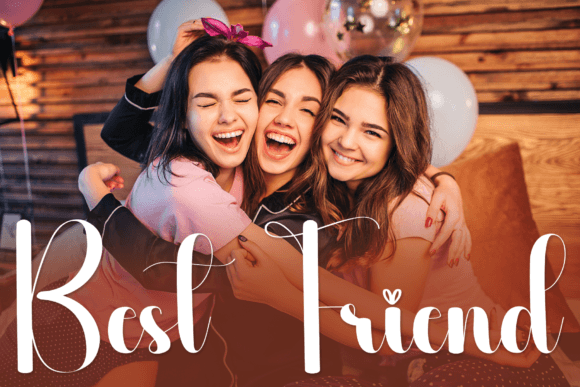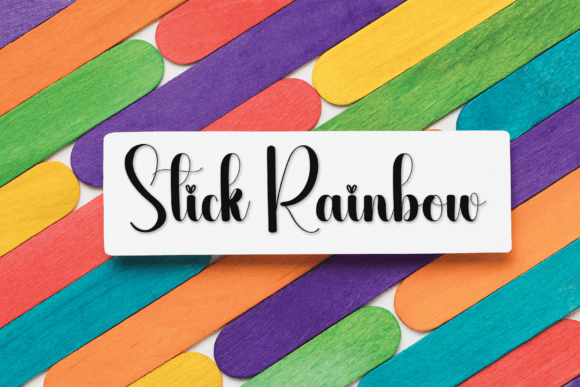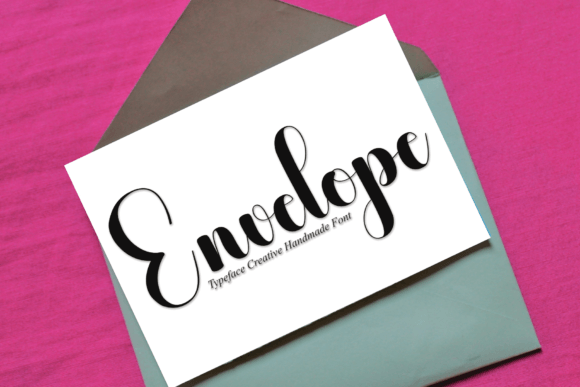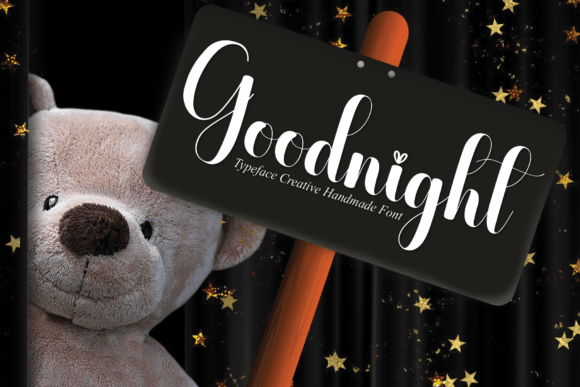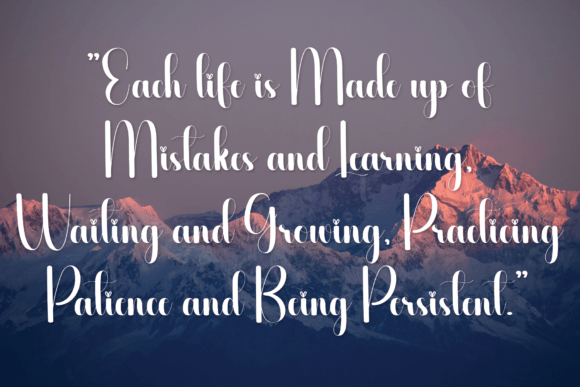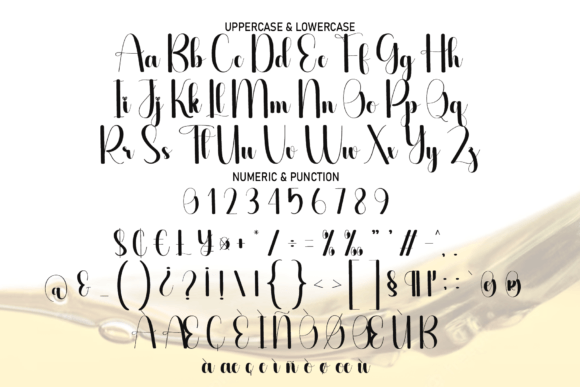
Introduction to Oily Font
As a designer, there’s nothing quite like the rush of inspiration that hits when you stumble upon the perfect font for your next creative project. It’s that moment when the words start flowing, and your imagination takes over. For many of us, it’s the discovery of a high-quality, unique font that sets our creative juices in motion. And that’s exactly what happens when you come across the Oily Font – a stunning, flowing handwritten font that exudes elegance and sophistication.
With its incredibly distinct and timeless style, the Oily Font is the perfect design resource for any creative project. Whether you’re working on a branding project, a website, or a social media campaign, this font is sure to add a touch of class and sophistication. And the best part? It’s available for free download, making it an accessible and valuable resource for designers of all levels.
Key Features of Oily Font
- High-quality design with a unique, oil-slick inspired aesthetic
- Perfect for use in graphic design, digital art, and other creative endeavors
Honest Review: Oily Font
As a designer, I’ve had the chance to experiment with a variety of fonts for my creative projects. Recently, I came across the Oily Font, which caught my attention due to its unique characteristics.
Here’s what I think of this design resource:
- What works well: ✨ The Oily Font has a high quality feel to it, making it perfect for any creative project that requires a touch of elegance. The transparent background allows for seamless integration with any design.
- ⚠️ The font may not be ideal for projects that require a more professional or corporate feel, as it has a more playful tone.
- ⚠️ The Oily Font may not be as versatile as other fonts, making it less suitable for complex or multi-line text.
Overall, I think the Oily Font is a great addition to any designer’s toolkit. While it may have some limitations, its unique style and high quality make it a valuable resource for any creative project.
Tips for Getting the Most Out of Oily Font
For a high quality look, use Oily Font on a transparent background to allow the design to shine. Experiment with different font sizes and colors to find the perfect combination for your creative project. You can also pair Oily Font with other design elements, such as images and shapes, to create a unique and engaging design.
Oily Font is a versatile design resource that can be used for a variety of creative projects, including social media graphics, brochures, and business cards. Its unique style and high quality look make it an excellent choice for designers and non-designers alike.